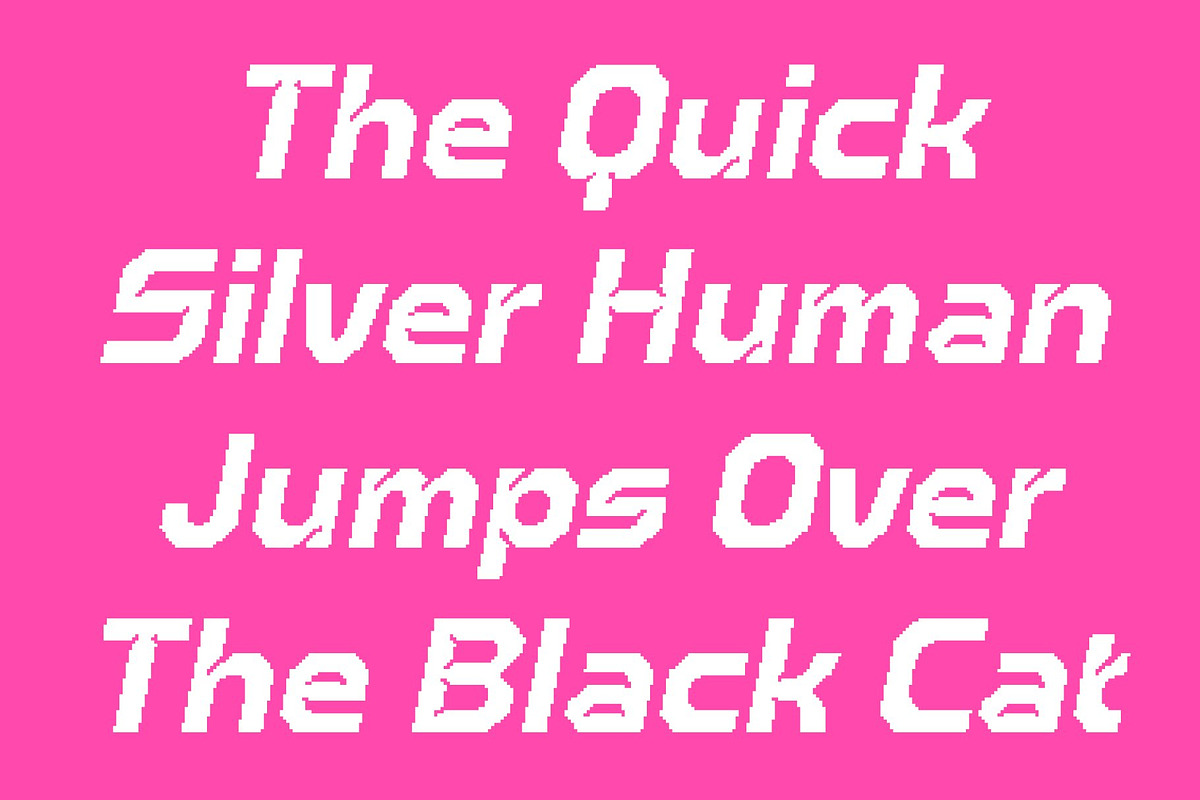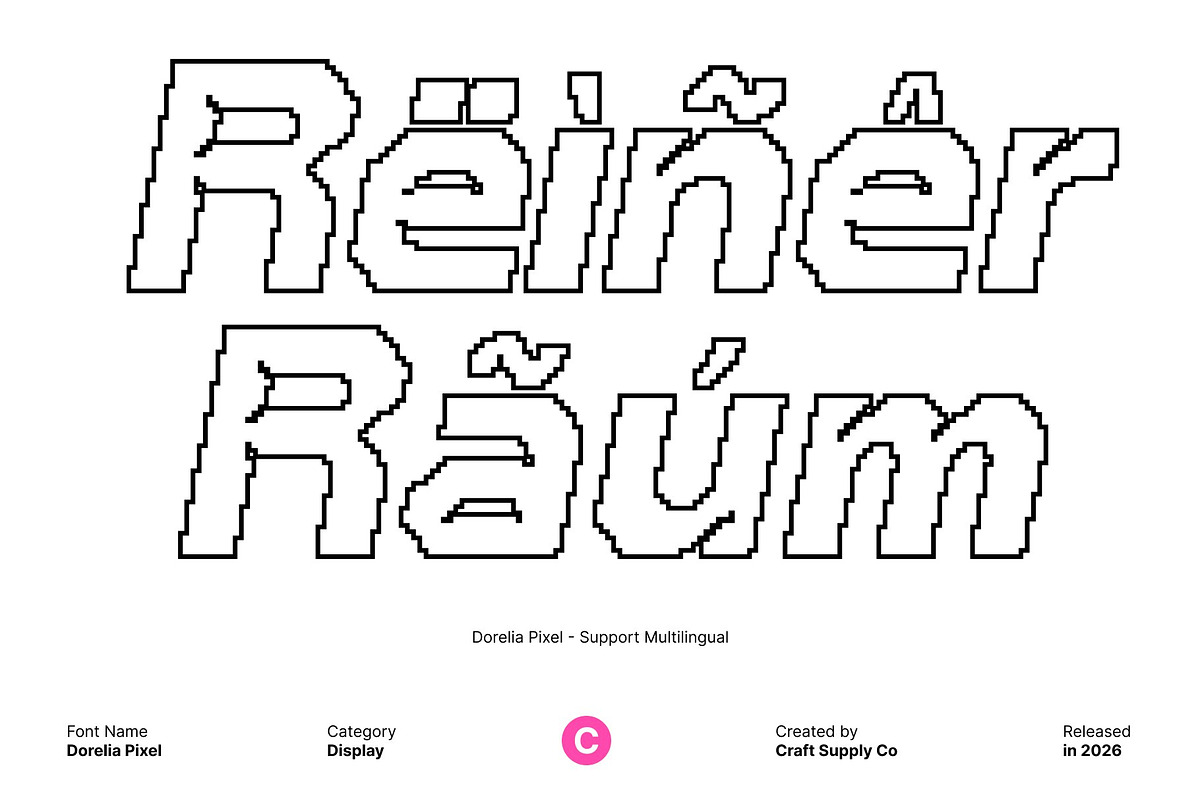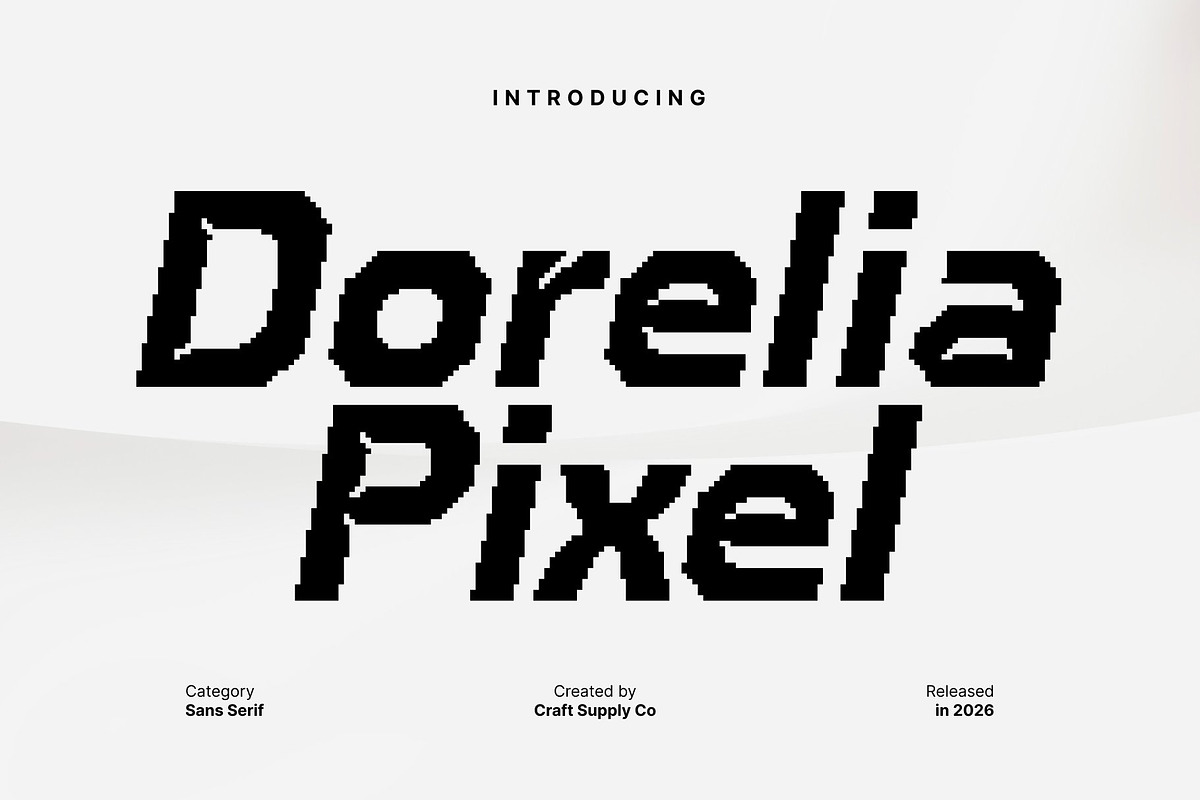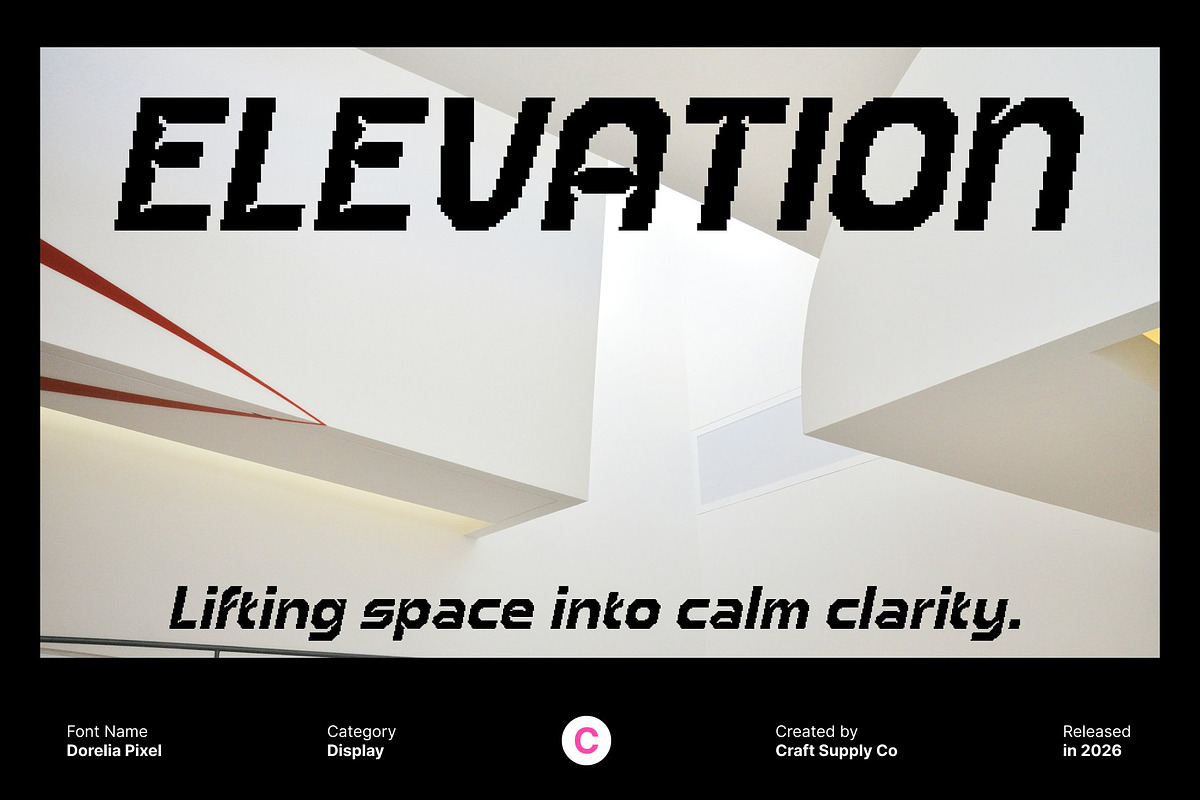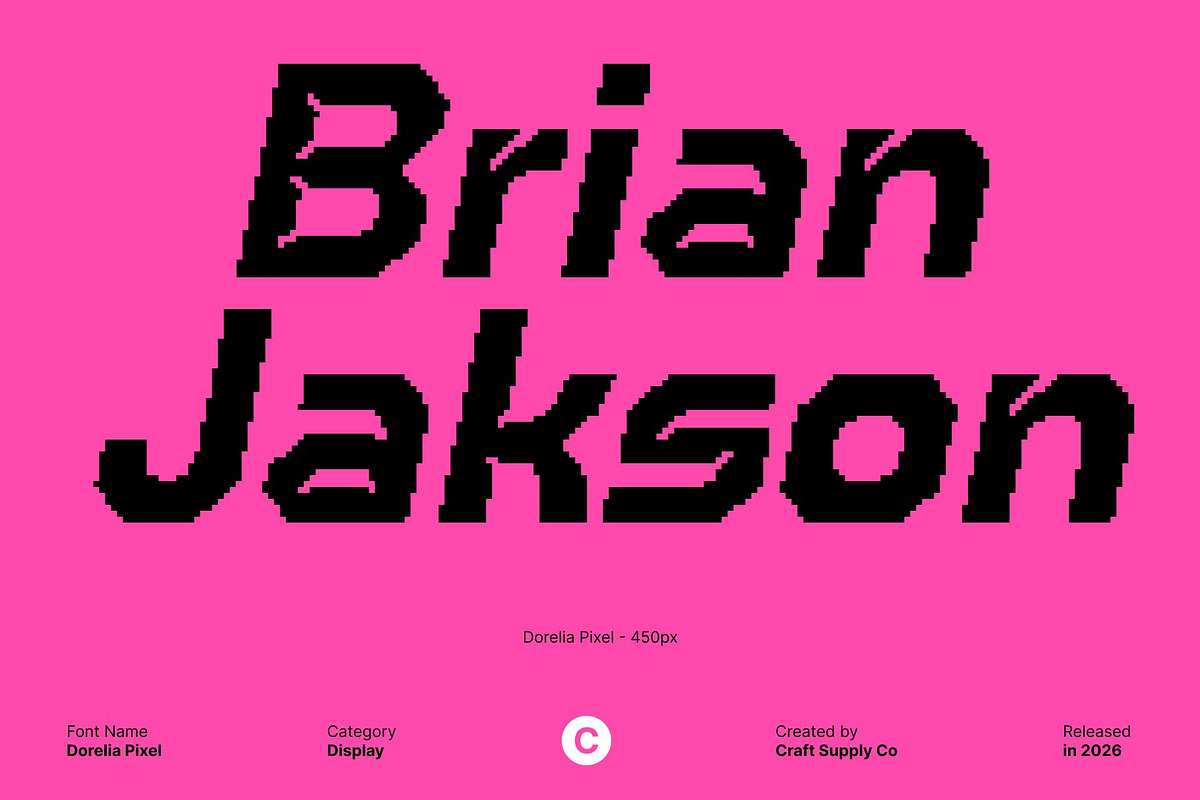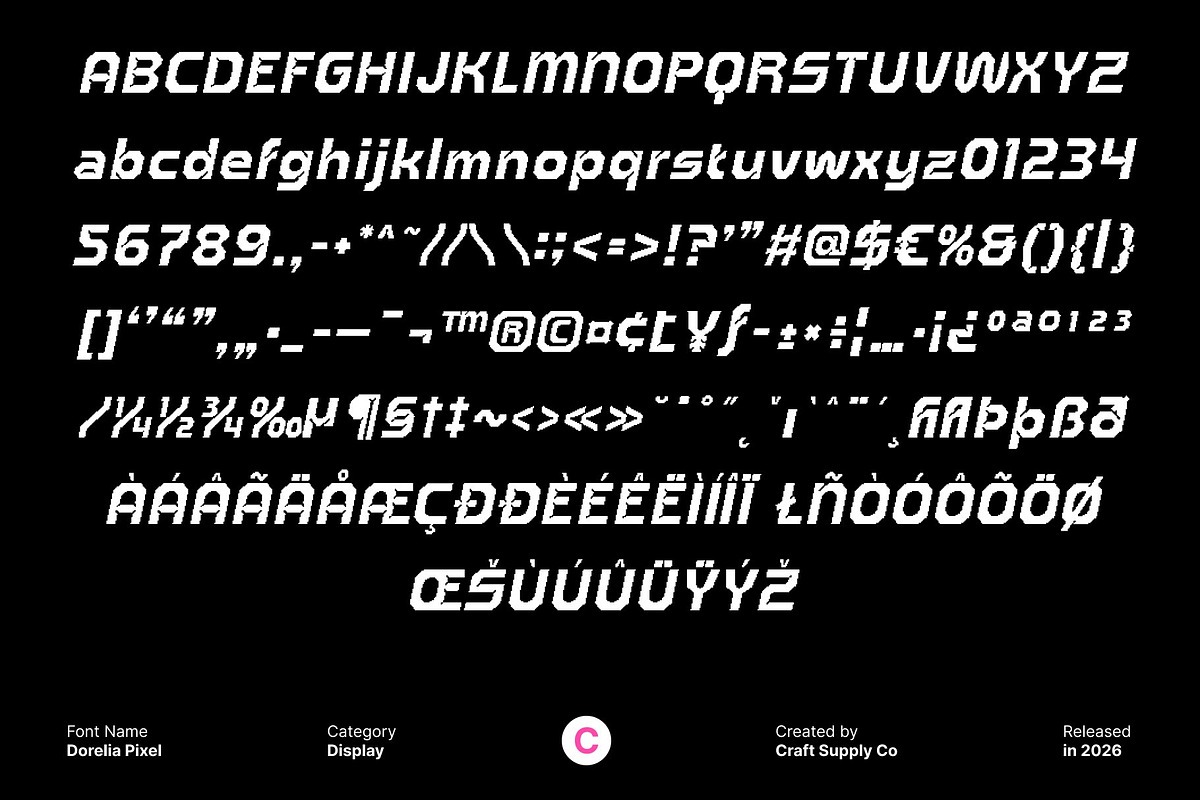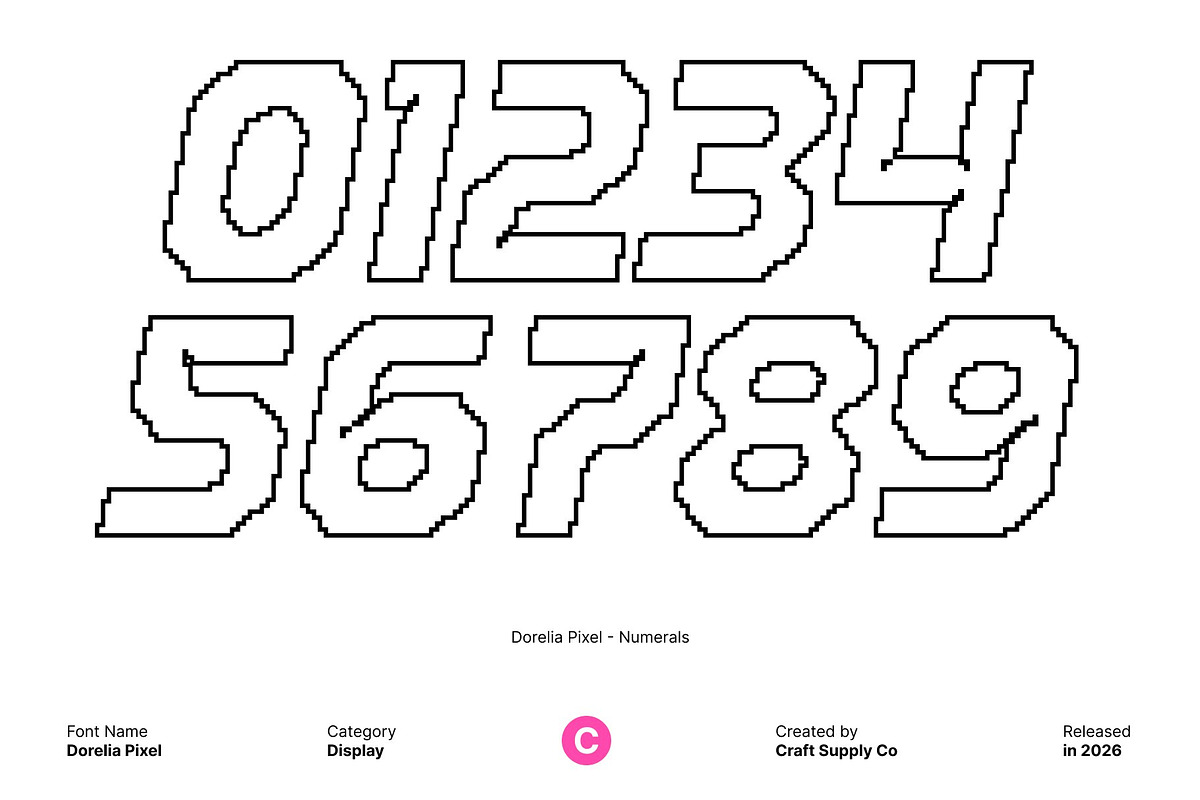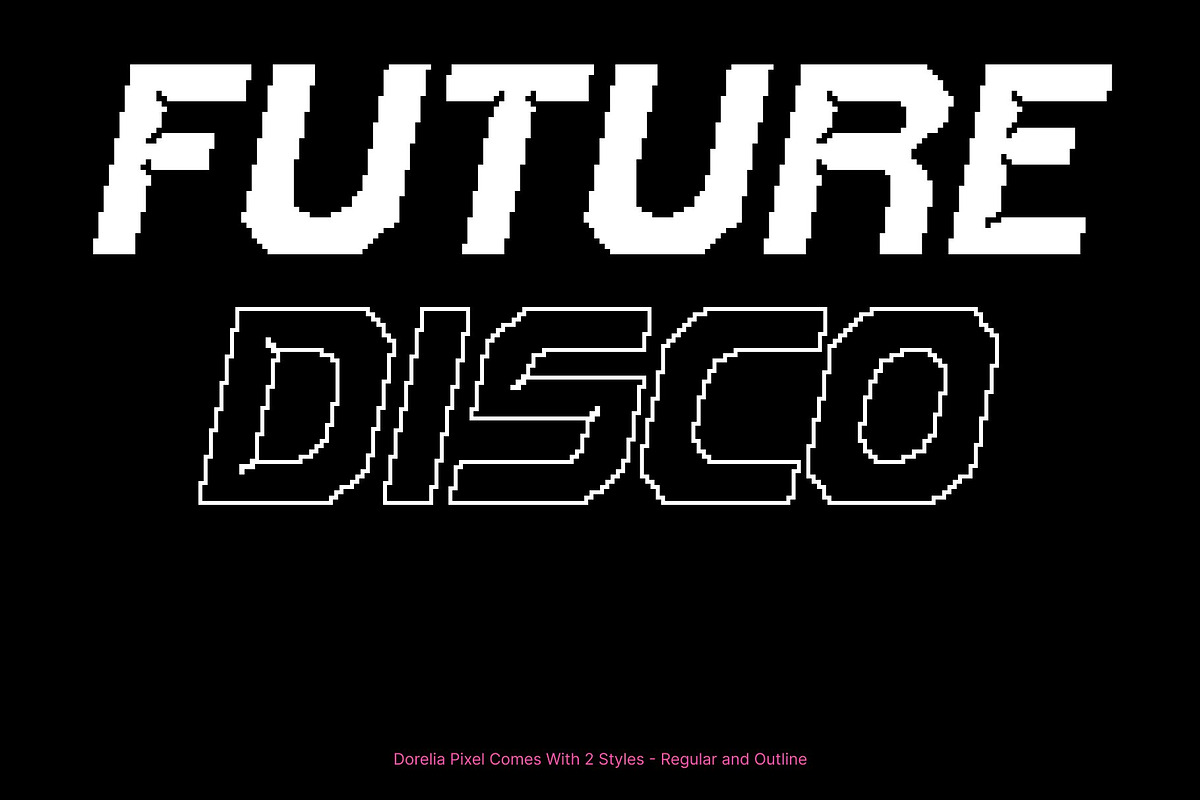
Dorelia Pixel
Dorelia Pixel – Where Futurism Meets Precision
Futuristic Inktrap Display Design This is a bold display font that merges futuristic aesthetics with distinctive inktrap details and a pixel-inspired structure. This combination creates a sharp, high-tech appearance that feels modern, experimental, and visually striking perfect for designs that push beyond conventional typography.
Bold Structure with Pixel Precision Featuring strong letterforms and innovative inktrap elements, this font delivers a dynamic balance between power and detail. The pixel treatment enhances its digital personality, evoking advanced technology, sci-fi interfaces, and precision-driven design while maintaining bold readability.
Made for High-Impact Displays This font excels in attention-grabbing applications such as posters, digital media, event visuals, packaging, and futuristic branding. Its bold form and pixel inktrap style make it ideal for projects that require a cutting-edge presence and a strong modern statement.
Versatile, Modern, and Expressive Despite its distinctive character, this font remains flexible and easy to use across various sizes and layouts. From headlines and banners to logos and experimental graphics, this font adds a contemporary, futuristic edge making every design feel precise, powerful, and forward-thinking.
- Dorelia Pixel Regular
- Dorelia Pixel Outline